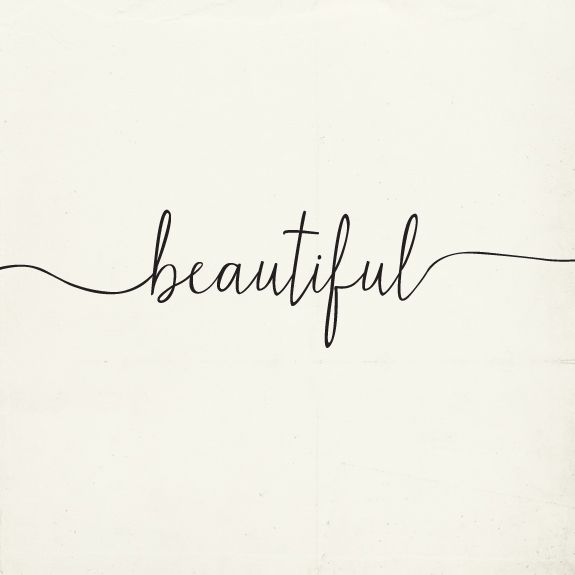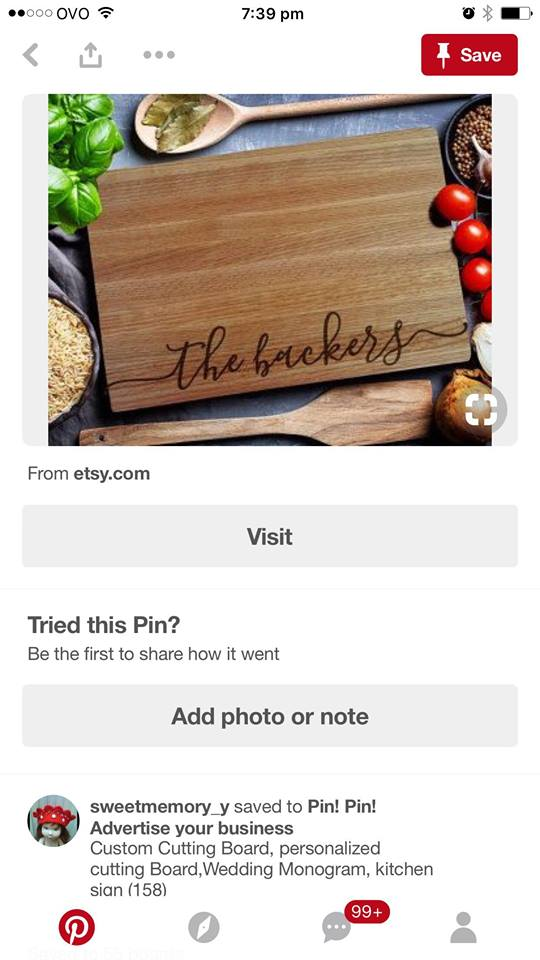
Does anyone know the font used on personalised chopping boards
I am looking to identify the font that is used on personalised chopping boards, its usually written down the bottom and starts and ends with a line.
Here is 2 examplesimage.png.84febb612f08b727bf6f9d7ae81e450b.pngimage.png.e4205c2705b90d33797bf71ab0b1ba7d.png